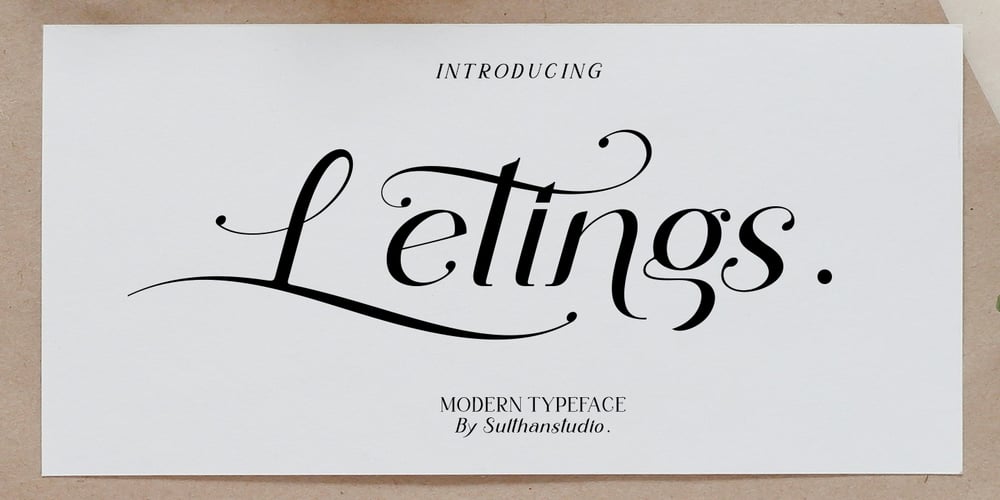
Leting Font Family was designed by Nasrullah and published by Sulthan Studio. Leting contains 8 styles and family package options. Introducing Leting, a modern serif font that fuses functionality with aesthetics, perfect for the needs of the contemporary era. Boasting eight distinctive thickness styles, Laying enhances the visual impact and communication of your creations. Every uppercase and lowercase letter features a unique swash and alternative, available in both regular and italic styles. Join the revolution in typography with Leting, destined to elevate all your design works with its sleek sophistication and versatile adaptability.